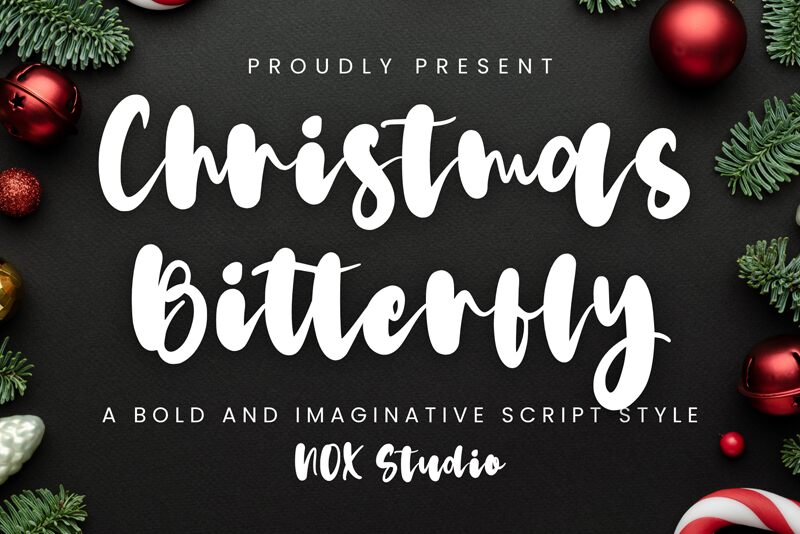
Christmas Bitterfly font by Sarif Letter is a free script font with a dynamic and whimsical style. The font offers an expressive and energetic aesthetic, making it perfect for designs that require a touch of imagination and smooth flow. Its contemporary and festive character is suitable for both modern and traditional projects, instantly bringing warmth and charm to the viewer.
Use this font in Christmas cards, holiday invitations, posters for festive events, logos, packaging, social media graphics, clothing prints, home decor, websites, and banners. The font combines well with other simple or classic fonts for added contrast.